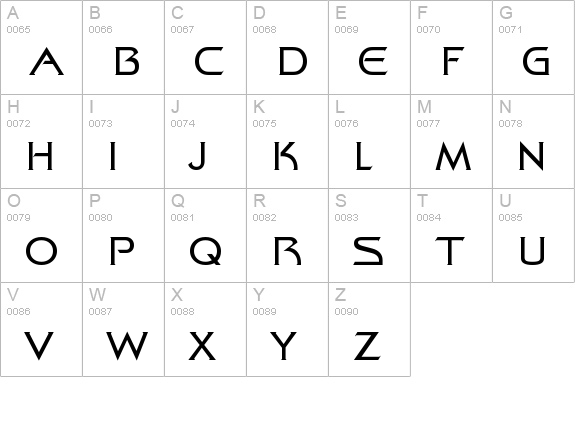
Introducing Final Frontier, a captivating and adventurous font that will transport you to unexplored territories of creativity. With its bold and futuristic design, this font embodies the spirit of exploration and the unknown. Final Frontier is the perfect choice for projects that demand a touch of mystery and excitement. Whether you are designing posters, logos, or social media graphics, this font will add a sense of wonder and intrigue to your work. What sets Final Frontier apart is not just its striking appearance, but also its availability. This incredible font is freely available to download at FontsMarket.com, making it accessible to all designers, artists, and enthusiasts. Unleash your imagination and boldly go where no designer has gone before with Final Frontier. It's time to break free from traditional fonts and embrace the limitless possibilities that this typeface offers. Let your creativity soar and embark on a journey to the final frontier of design.